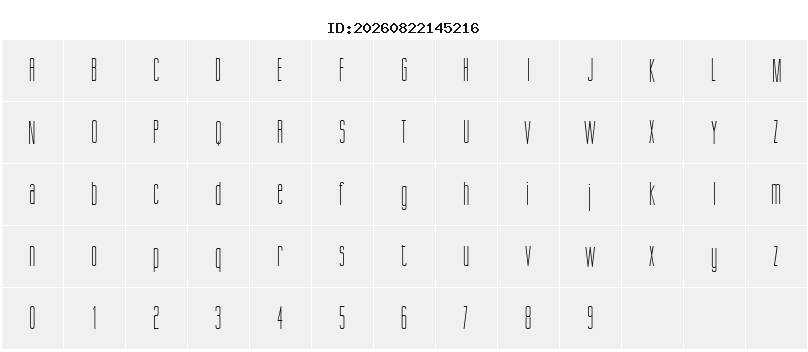
Scottsdale DB Preview
• Font Name: Scottsdale DB
• Full Font Name: Scottsdale-Regular DB
About Scottsdale DB.ttf
Scottsdale DB.ttf is a modern, elegant sans-serif font designed for ultimate readability and visual harmony. Perfect for branding, headlines, web design, and print materials.